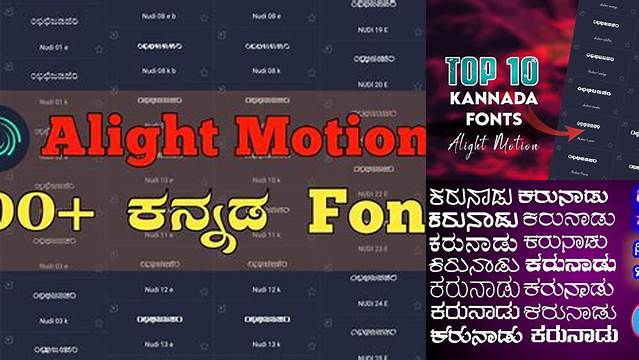
Hey everyone! If you're on the hunt for some awesome Kannada fonts to spice up your Alight Motion projects, you've landed in the right spot. This article is all about getting you set up with a whopping 100 different Kannada fonts, ready to roll in Alight Motion. We'll cover everything from finding the fonts to installing them and even giving you some tips on how to use them effectively. So, buckle up, because we're about to dive into the world of Kannada typography!
1. What's the Buzz About Kannada Fonts in Alight Motion?
Alright, so why are we even talking about Kannada fonts for Alight Motion? Well, if you're anything like me, you love adding a personal touch to your video editing. Maybe you're creating a project that needs some traditional flair, or perhaps you just want to experiment with different styles. Kannada fonts allow you to incorporate the Kannada language into your video projects, offering a unique way to express yourself and connect with a wider audience. Think of it like this: fonts are the clothes your words wear. Kannada fonts can help make your words look and feel more authentic, and more visually engaging. The best part is the vast array of choices available. From classic, elegant styles to modern, bold designs, there's a Kannada font out there for every project. Plus, knowing how to download and use these fonts opens up a world of creative possibilities within Alight Motion. You can create stunning titles, captivating captions, and visually appealing text overlays that truly stand out. Kannada fonts offer a way to celebrate culture, communicate more effectively, and give your videos that extra edge. Isn't that what we're all looking for?
Let's face it, having the right font can significantly affect the overall feel of your project. The right font can evoke emotions, set the mood, and even help convey your message more effectively. Kannada fonts offer that extra layer of personalization, allowing you to communicate in a visually compelling way. Using Kannada fonts can make your video projects feel more relevant and targeted towards specific audiences. Think about how the look and feel of a movie poster can grab your attention. This is the effect you can achieve through the strategic selection of the perfect font. In a world where content is king, the ability to stand out is more important than ever. Using Kannada fonts gives you that competitive edge, helping your videos be more memorable and shareable.
4. Testing and Previewing Your Kannada Fonts in Alight Motion
Alright, so you've installed the fonts, and you're probably eager to see how they look. The best way to do that is to test and preview them within Alight Motion. Begin by opening a project in Alight Motion and adding a text layer. Type in some text using the Kannada script. This lets you see how each font renders the language. Try out all the 100 fonts if possible, and get a feel for their unique visual styles. Pay close attention to the readability of the text, particularly at different font sizes and on various backgrounds. Some fonts might look great on a large scale but could be difficult to read in small sizes or when combined with certain background colors. Select a few of the fonts that resonate with you. These will become your go-to options for different projects. When previewing, also consider how the fonts interact with other design elements. Do they complement your video's overall aesthetic? Do they match the mood or tone you're trying to convey? Remember, a good font is not just about aesthetics. It should also convey the message effectively and contribute to the overall video experience. Don't hesitate to try different font sizes, colors, and effects to find the perfect match.
Keep experimenting with the fonts to find their ideal use cases. Certain fonts might work best for headlines, while others are more suitable for body text. It is important to practice using the Kannada fonts, so that you can refine your choices and create a harmonious visual output. Over time, you will build a style with the perfect fonts for the needs of your video projects.
5. Troubleshooting Common Kannada Font Issues
Sometimes, things don't go according to plan. Let's troubleshoot some common issues you might run into with your Kannada fonts in Alight Motion. The first issue is fonts that don't appear in the app. This can be due to several reasons, such as font file corruption, incorrect installation, or incompatibility with your device. To fix this, make sure the font files are correctly extracted from any compressed folders, and reinstall the font. Double-check the installation instructions. Make sure you've restarted Alight Motion after installing the fonts. Another common problem is incorrect character display. If the Kannada letters appear as boxes or symbols, this means the font may not support the specific characters. Verify that the font you selected supports Kannada characters by typing a sample text. If the font is not supported, try other Kannada fonts. Make sure your device keyboard settings are correctly set to support the Kannada script. An update for the app or your device system could also affect font compatibility. Always keep your apps and operating systems up to date.
To future-proof your Kannada font choices, consider the longevity of your font. Select fonts that are classic and timeless. If you want to ensure your video will always be accessible, choose fonts that are easy to read. Make sure the font is compatible with different devices. Always keep your fonts backed up. Also, you want to ensure your font has a license. The best approach is to choose versatile fonts. This way, your project will stay relevant.
Also, look at your project's goals. By following these tips, your font choices will last for many years.